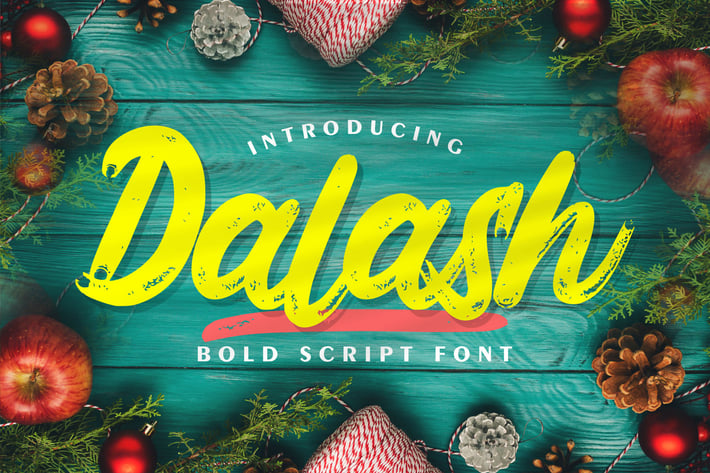
Dalash | Bold Script Font
Dalash | Bold Script Font with a calligraphy style, So beautiful on invitation like greeting cards, branding materials, business cards, quotes, posters, and more!